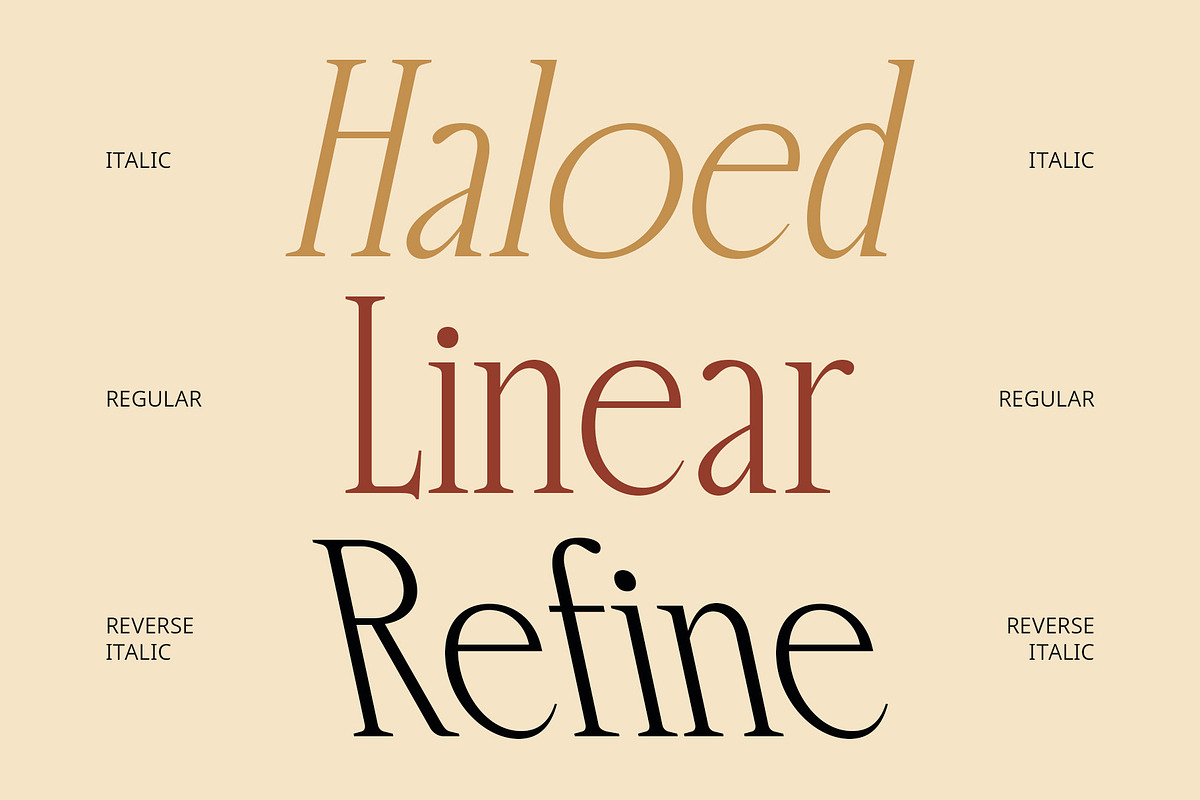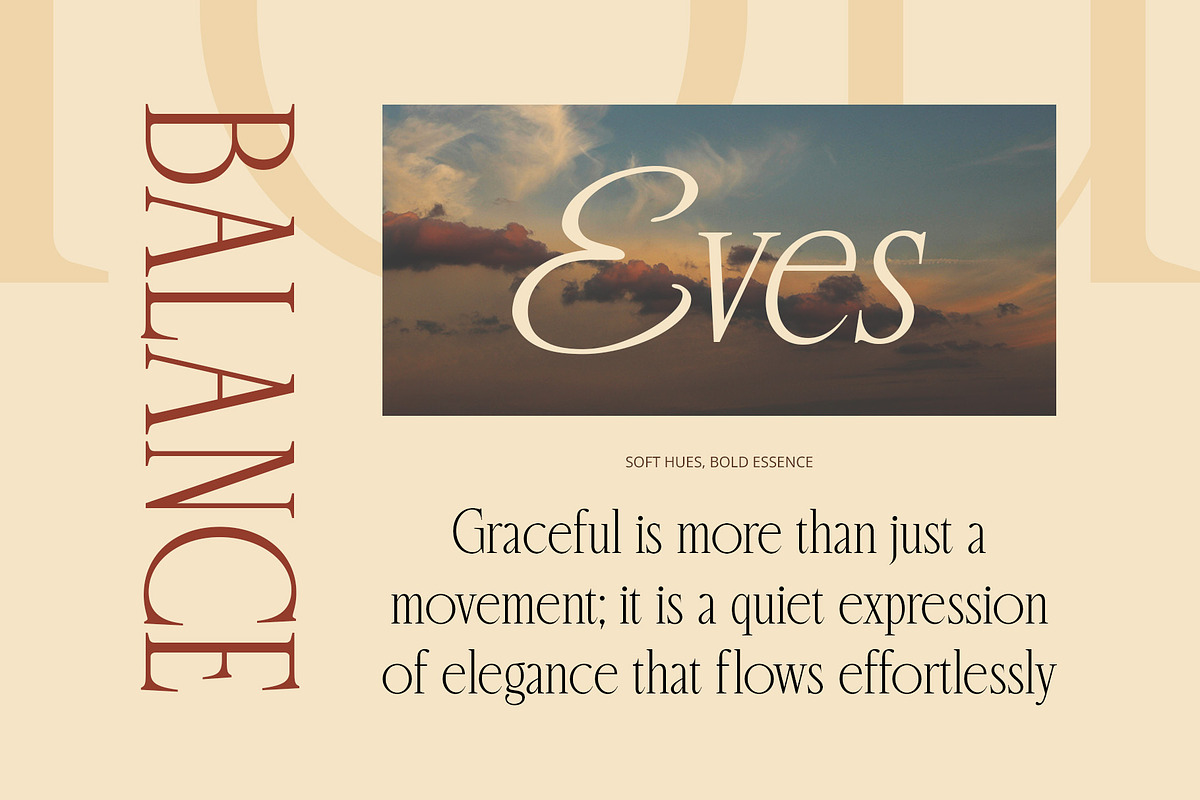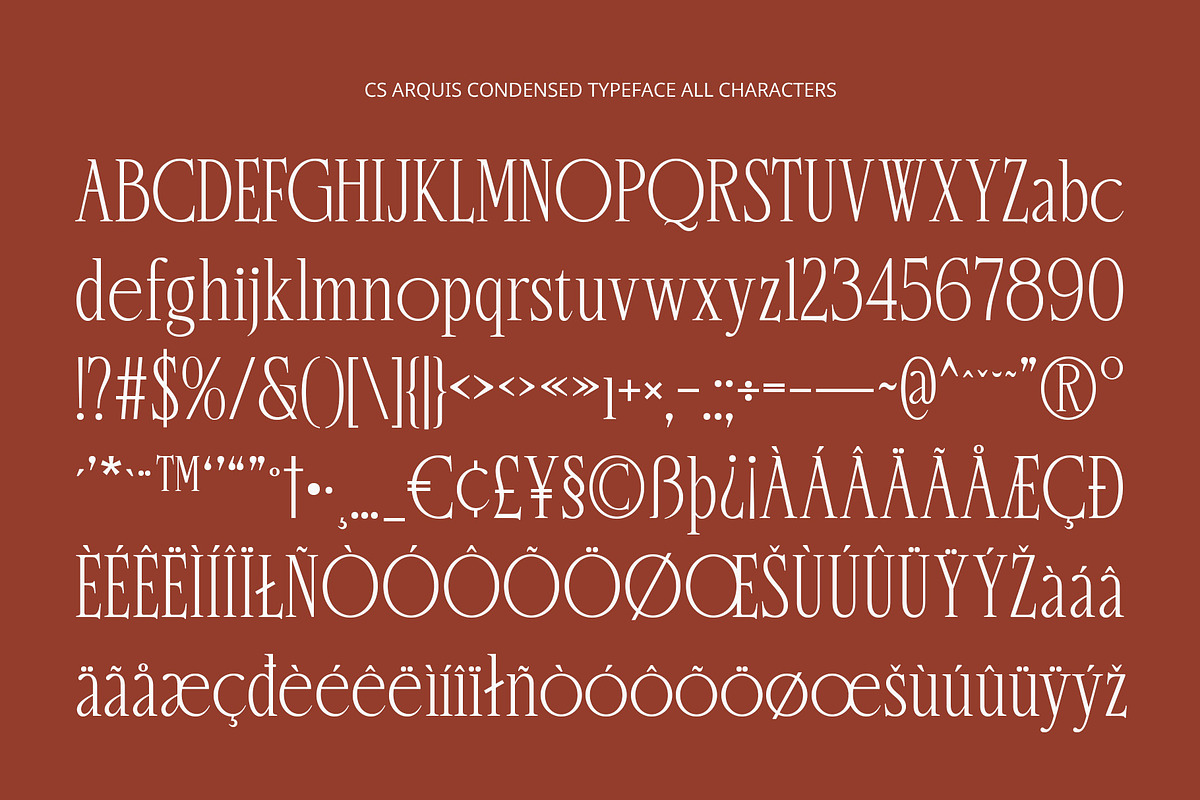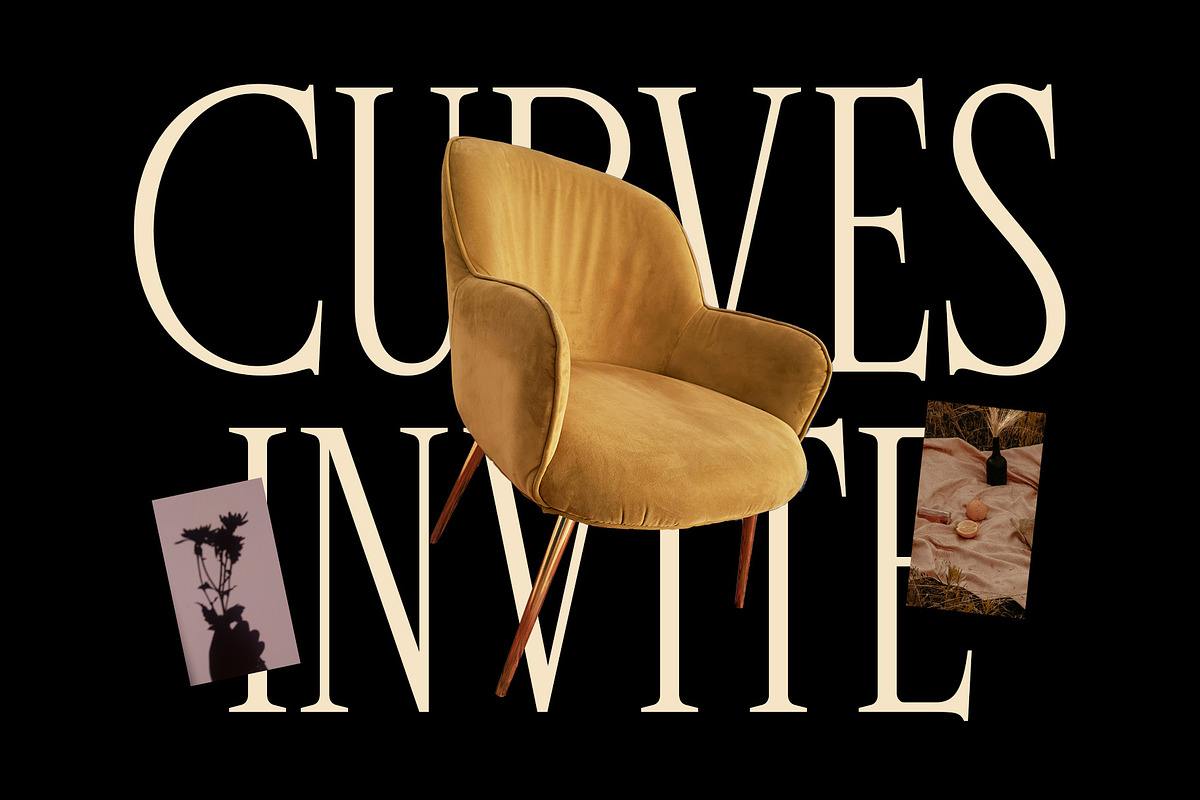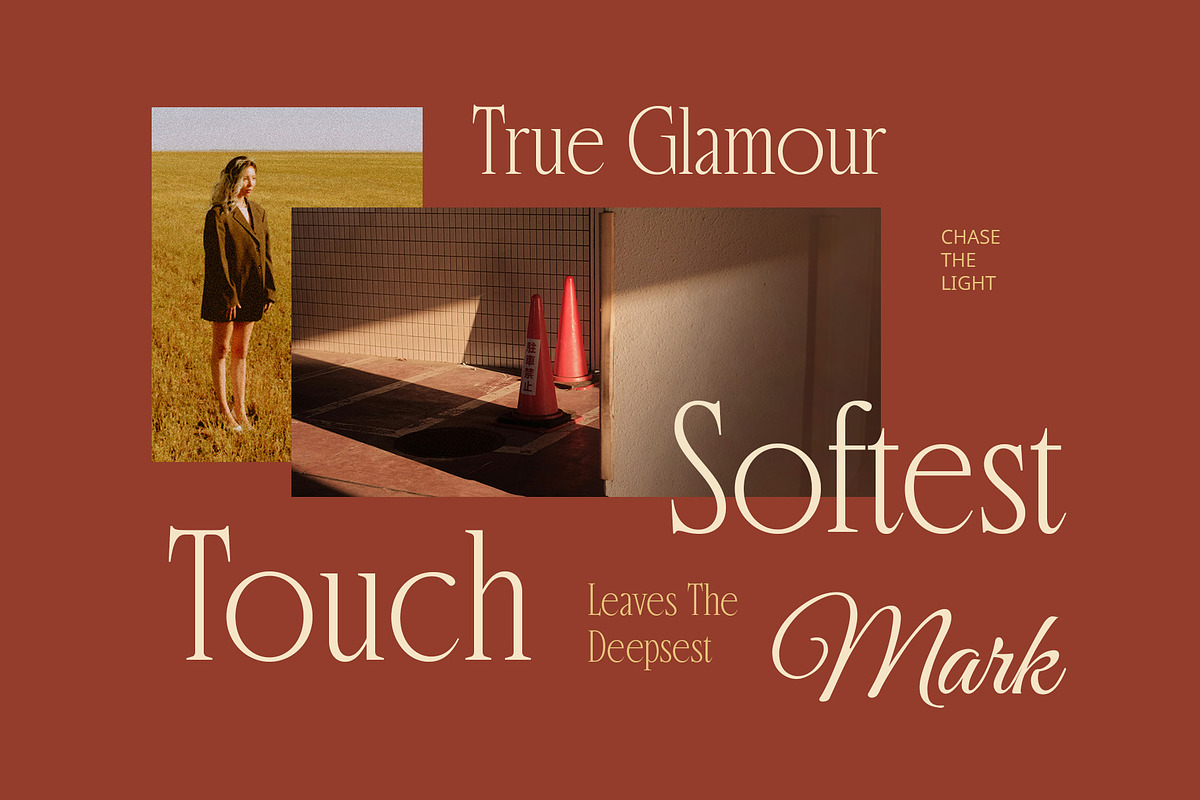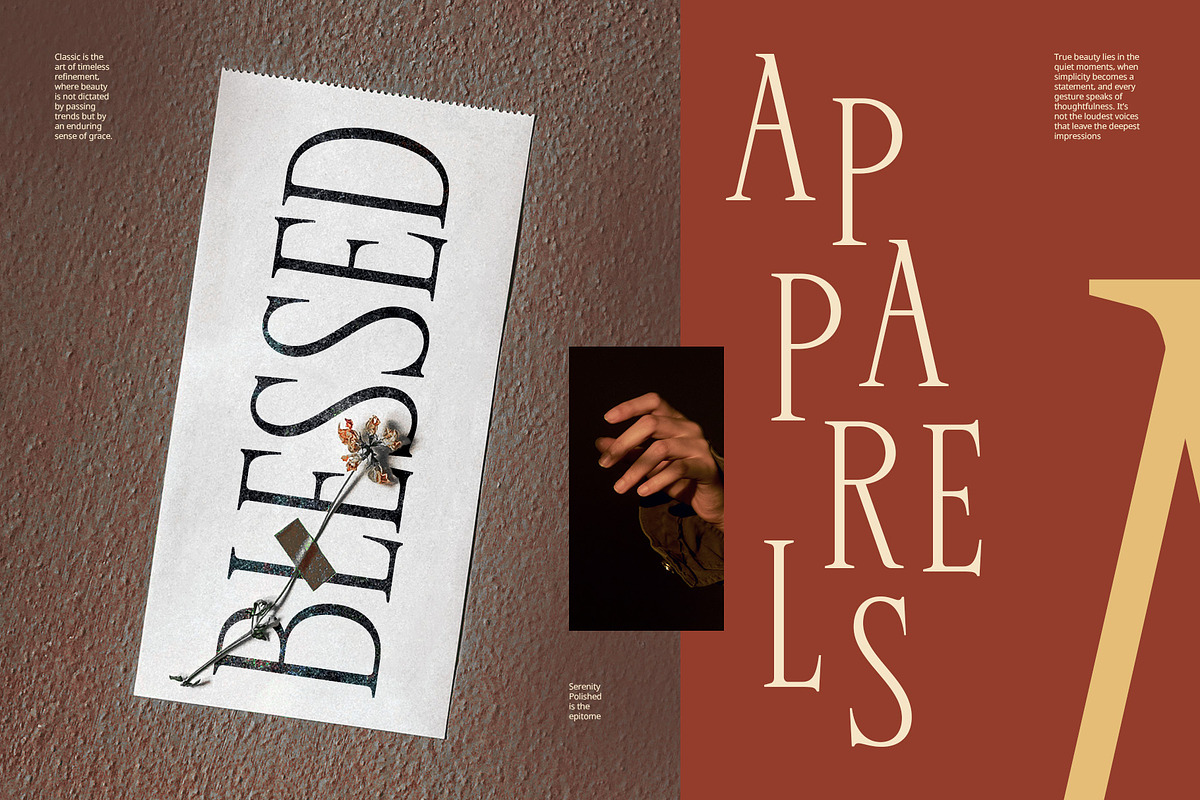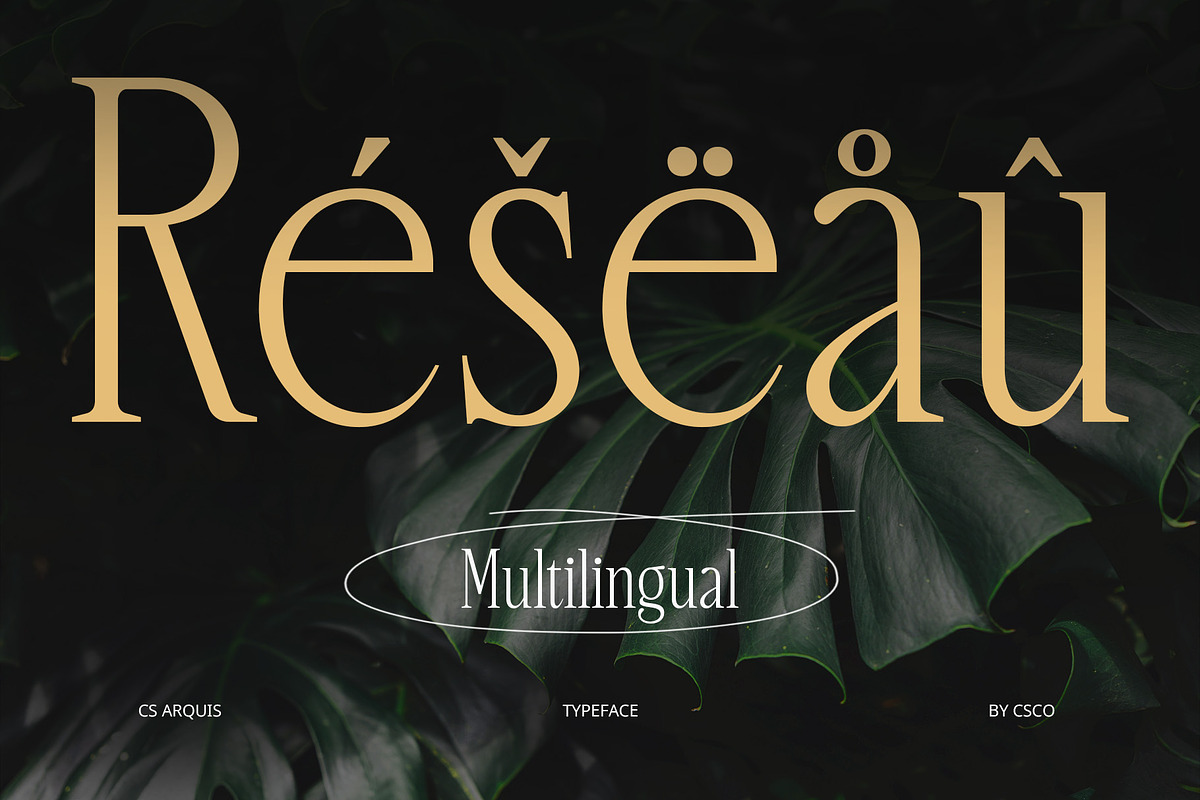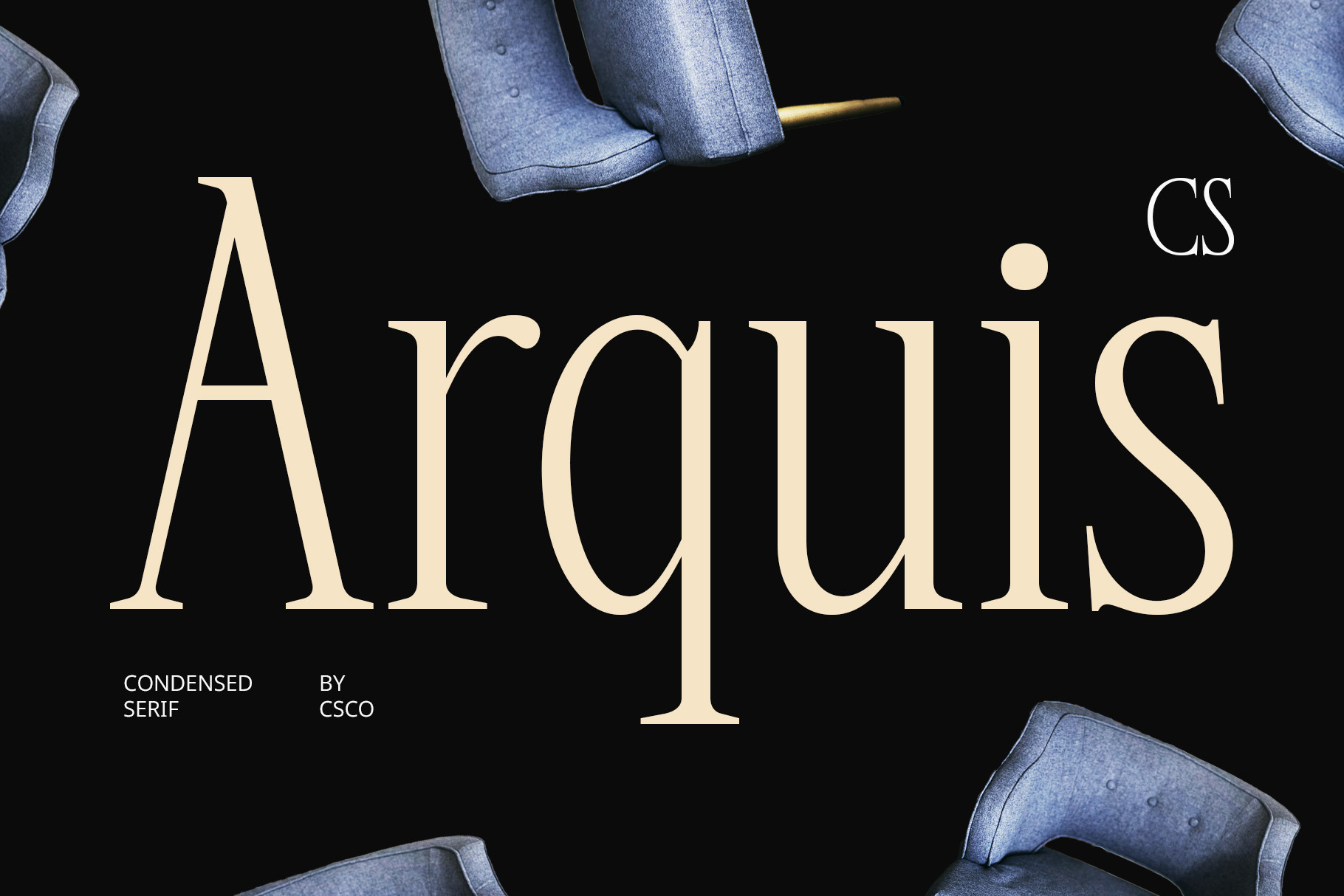
CS Arquis – Condensed Font
CS Arquis – Condensed Font: Sleek Elegance with Modern Refinement
Sleek, Slim Serifs for a Contemporary Look CS Arquis is a modern serif font that features long, slim condensed serifs, giving it a sleek and contemporary appearance. The condensed structure creates a narrow and tall design, providing an elegant, refined aesthetic that retains a sense of modernity while showcasing timeless serif beauty. It’s perfect for designs that require both sophistication and efficiency in space.
Refined and Elegant Aesthetic The long, slender serifs of CS Arquis lend an air of grace and refinement, making it an ideal choice for projects aiming to project elegance. The balance of sharp, clean lines with subtle curves creates an understated yet impactful visual impression. Its aesthetic beauty enhances any design, offering a perfect blend of luxury and style.
Perfect for High-End Design Applications CS Arquis excels in high-end branding, fashion editorials, and sophisticated visual identities. Its condensed form allows for efficient use of space without compromising on readability or visual impact.
Modern Yet Timeless With its sleek form and elegant serif design, CS Arquis merges contemporary style with a timeless aesthetic. It is an ideal font for any creative endeavor seeking to evoke luxury, sophistication, and a modern touch. Its versatility ensures that it stands out in a variety of applications, from luxury brands to high-fashion editorials.
- CS Arquis Regular
- CS Arquis Italic
- CS Arquis Reverse Italic